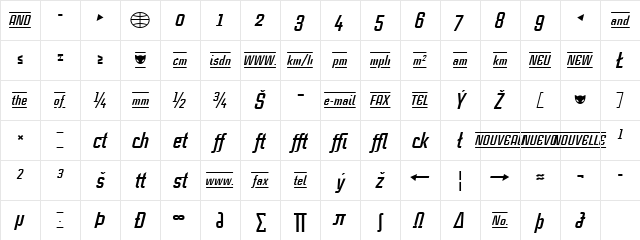
CaseStudyNoOne LT is a composed and adaptable typeface that performs quietly and consistently across a wide range of design contexts. The slanted form adds forward momentum and visual energy. Its bold stroke weight gives it real presence on the page.
Pro Tip: Use CaseStudyNoOne LT for emphasis, pull quotes, and subheadings where its slanted energy can add rhythm to the layout.